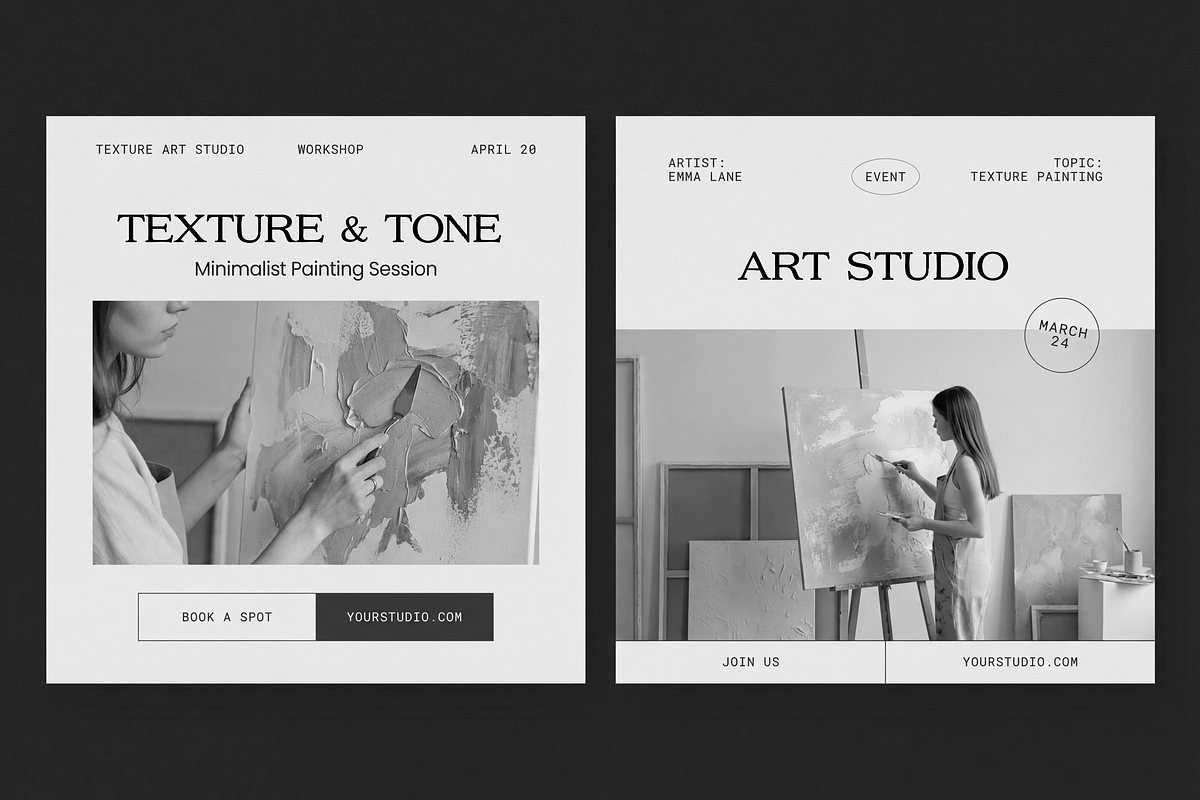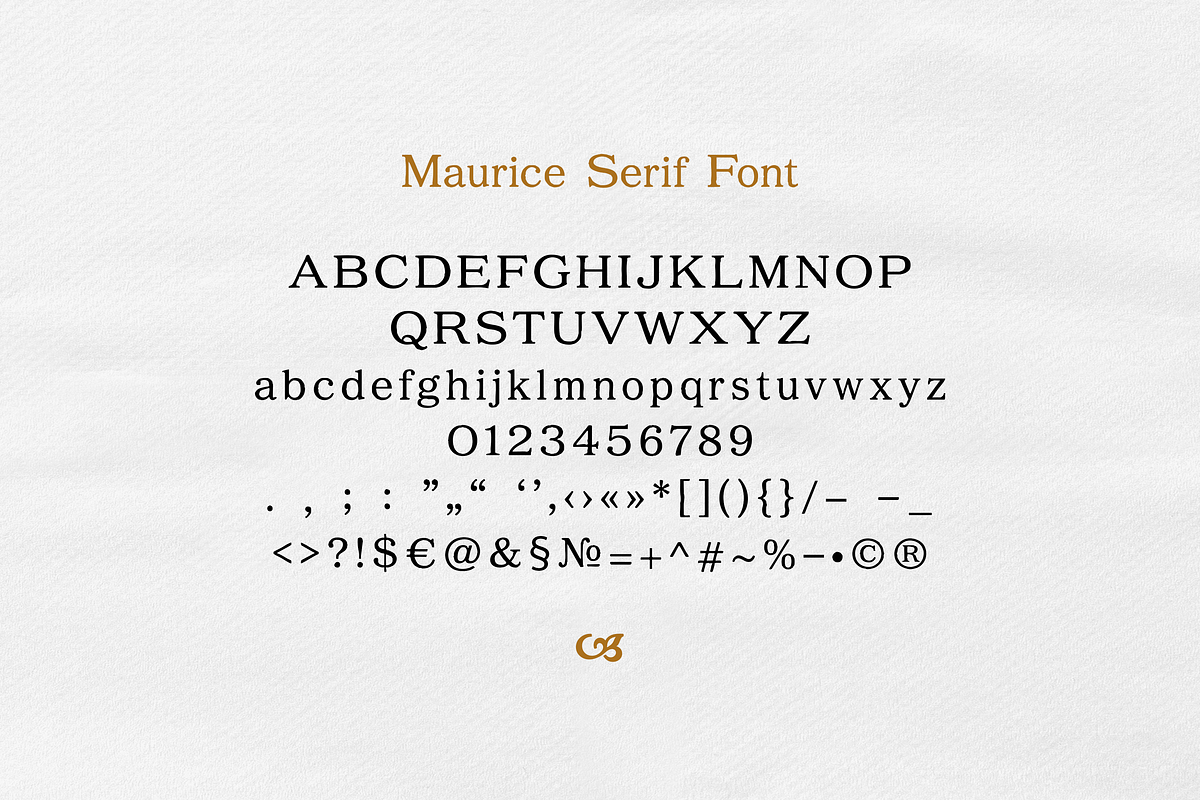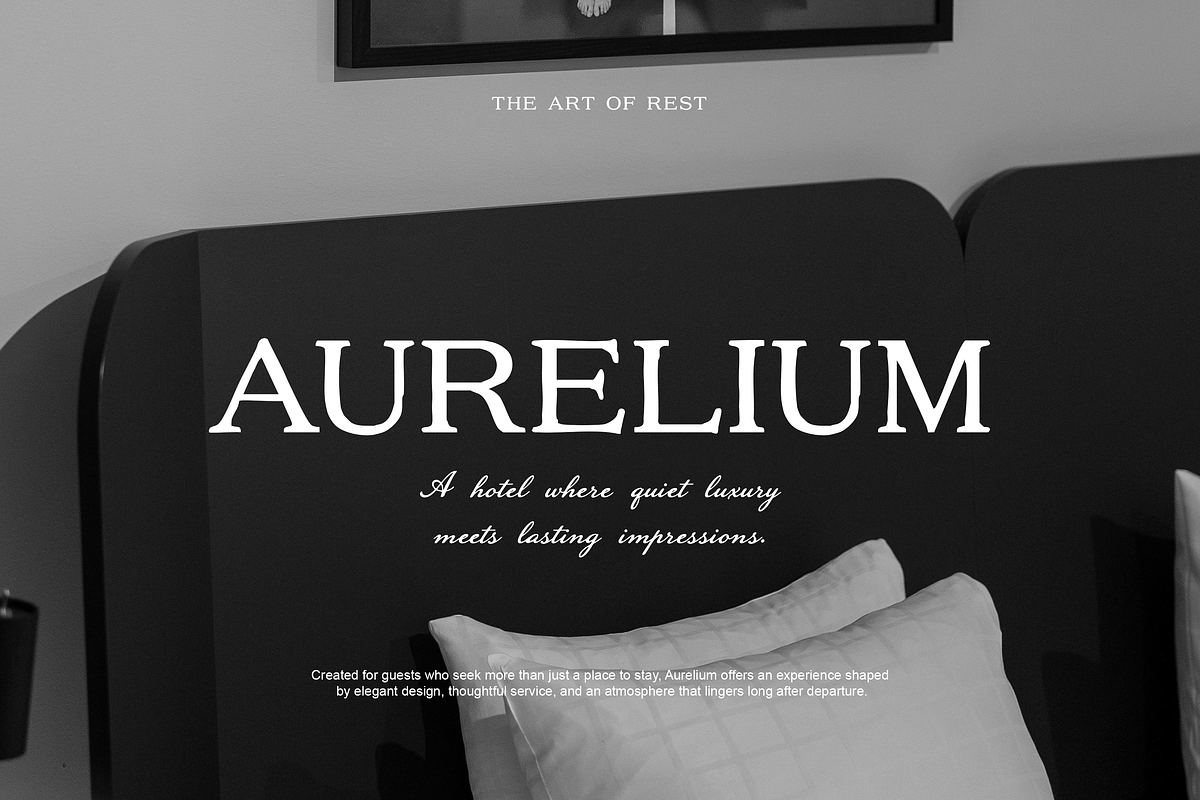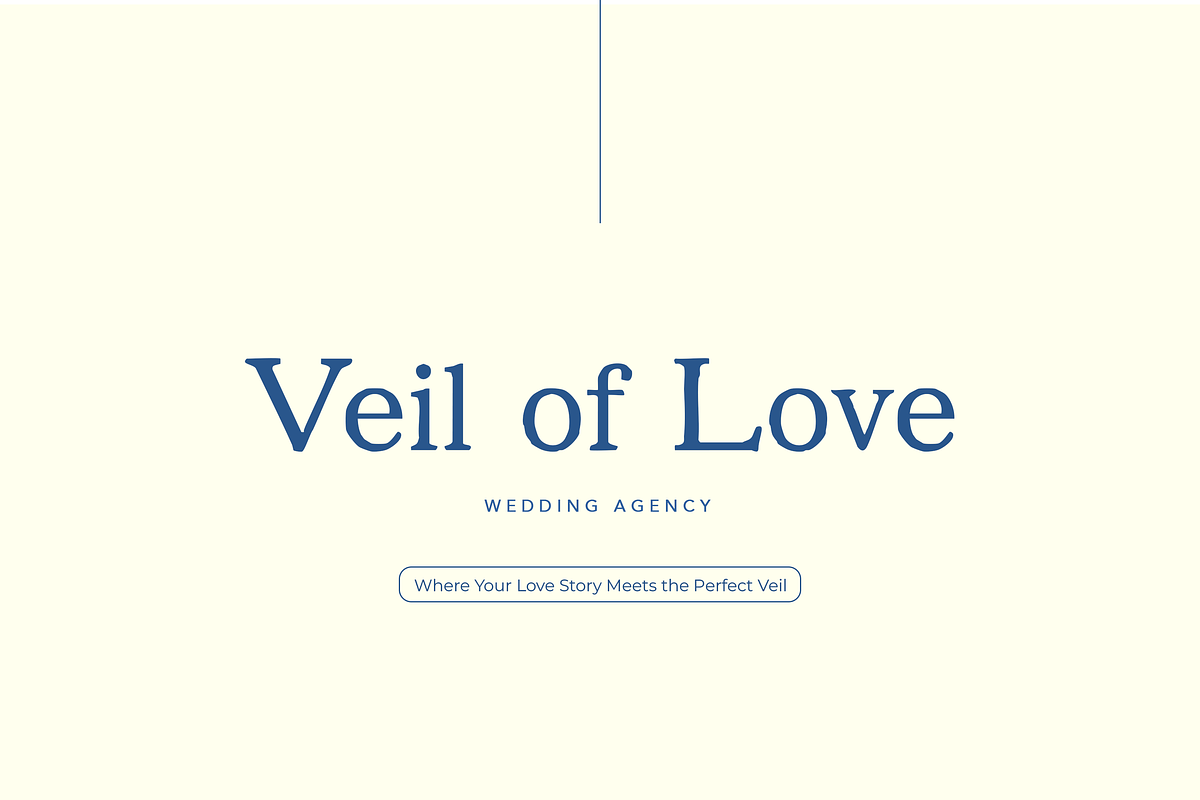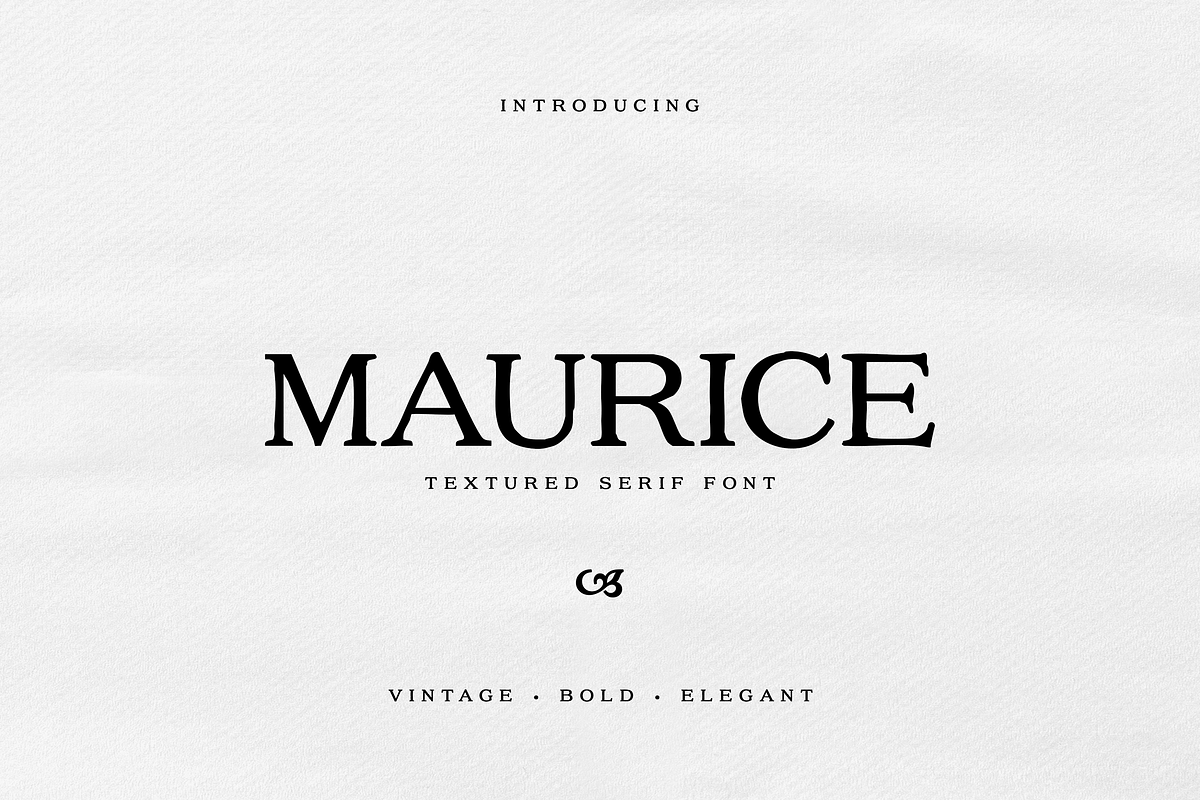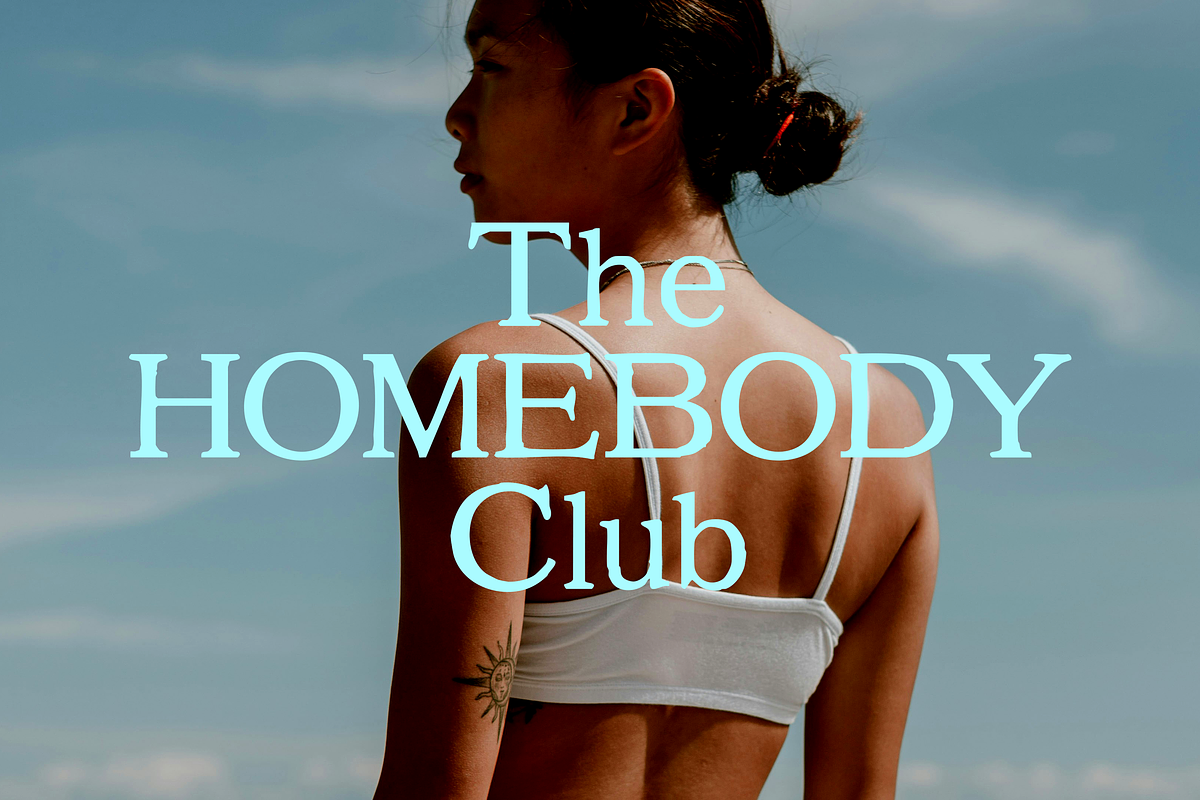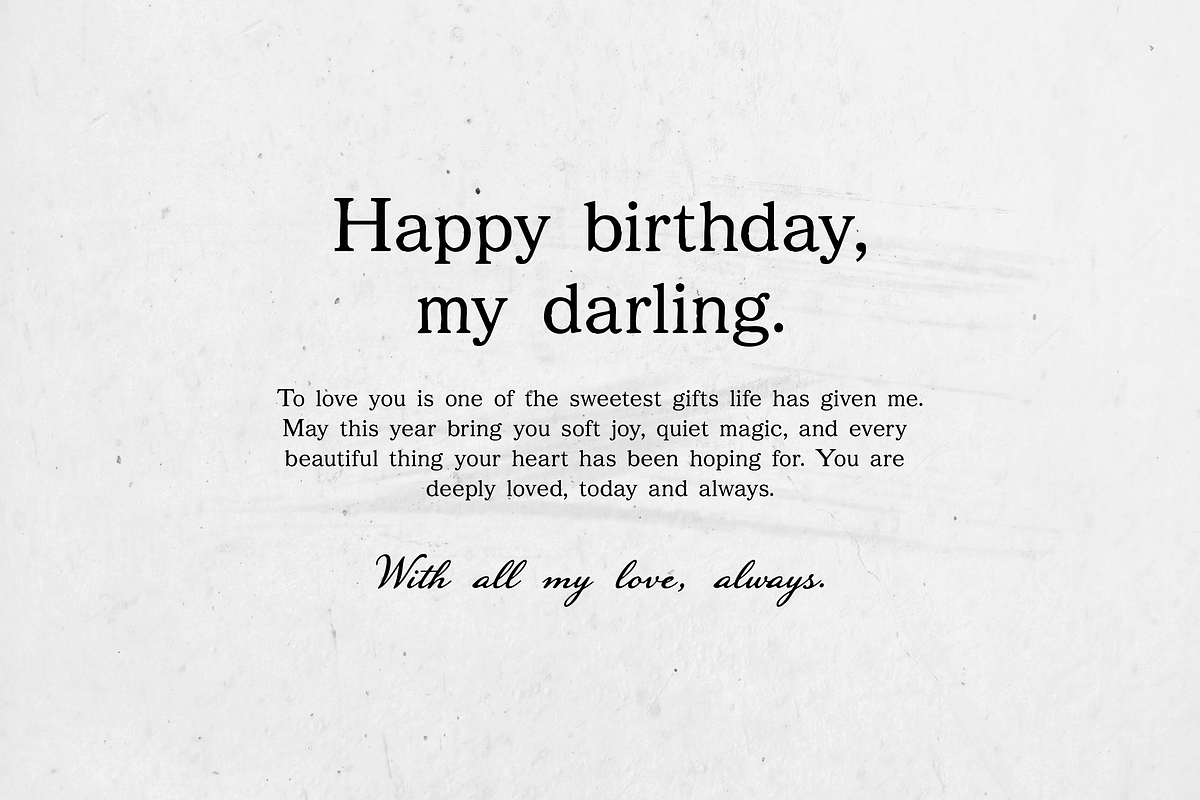
Maurice Textured Serif
Maurice is a textured serif font with a vintage, bold, and elegant character. Perfect for logos, branding, packaging, wedding stationery, editorial layouts, posters, and refined visual identities.